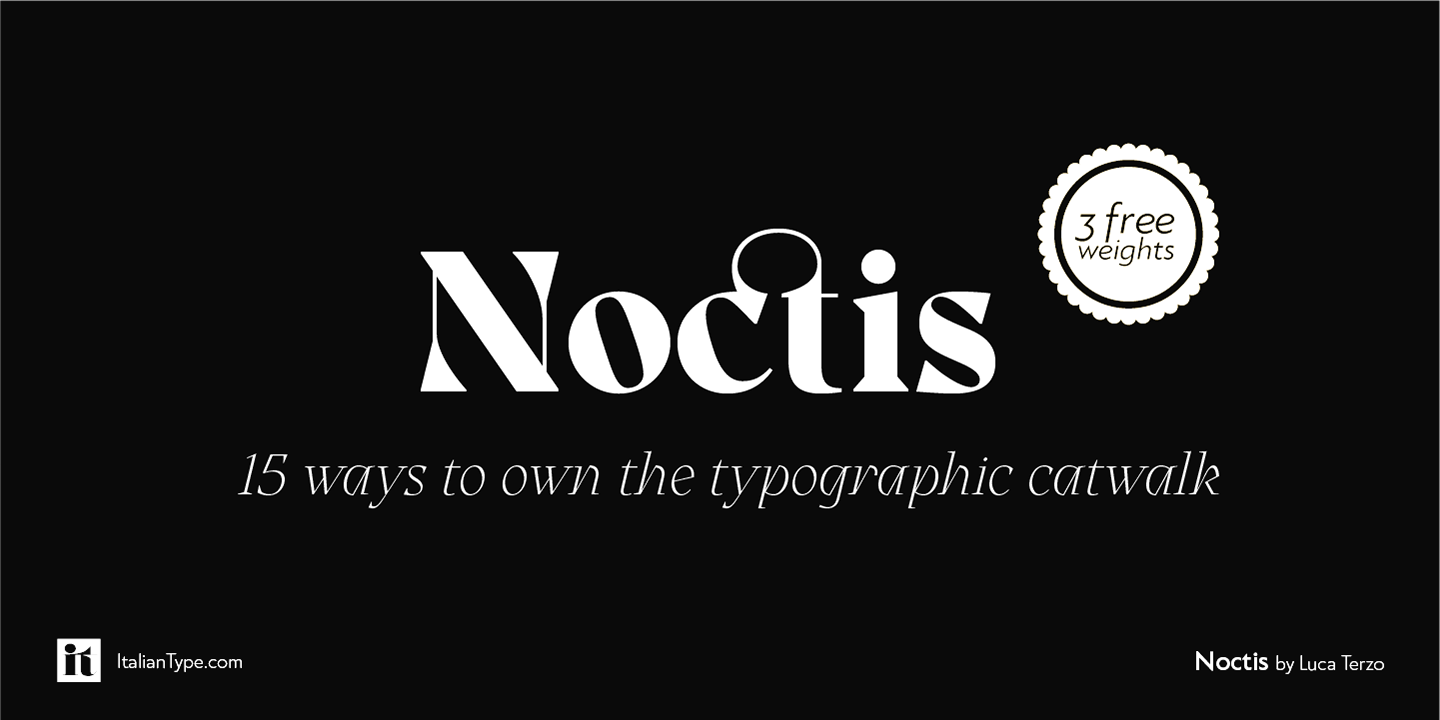
Bring a sense of mystery and elegance to your designs with Noctis Font Free Download. This stylish serif typeface features sharp, clean lines and a modern, sophisticated design, making it perfect for branding, editorial layouts, logo design, and digital content. Noctis Font Free Download combines classic elegance with contemporary appeal, offering a bold and distinctive look.
The versatile design of Noctis Font makes it suitable for both titles and body text, adding an air of sophistication to any project. Whether you're designing for fashion, luxury brands, or high-end publications, this font adds style and clarity to your creative work.